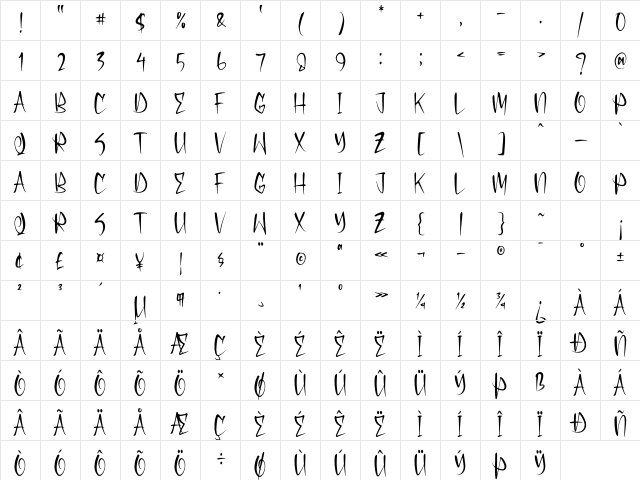
Shadow Pumpkin Regular
Foundry: Perspectype Studio
Designer: Heru Utama Putra
Design Context for Shadow Pumpkin
Shadow Pumpkin is built around its visual character rather than neutral utility - its distinctive forms are designed to make an impression at display sizes.
Font Pairing: Pair with a clean neutral sans-serif for body copy to let Shadow Pumpkin's character lead without overwhelming the composition.
Pro Tip: Use Shadow Pumpkin exclusively at display sizes - it was designed to be seen, not read at length. Let a neutral companion handle body copy.